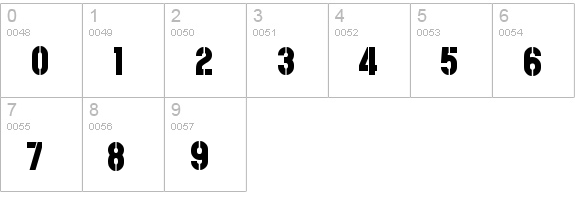
NFL Packers Font Details
Introducing the NFL Packers font, a must-have for all die-hard Green Bay Packers fans! This iconic font captures the spirit and essence of the legendary football team, allowing you to bring their winning energy to any design project. The NFL Packers font is bold, powerful, and instantly recognizable. Every letter is meticulously crafted to resemble the iconic Packers logo, with sharp edges and a strong presence that demands attention. Whether you're designing a Packers-themed website, creating stunning graphics for social media, or adding a touch of green and gold to your personal branding, this font is the perfect choice to elevate your designs to championship level. But here's the best part – the NFL Packers font is available for free! That's right, you can download this incredible font without spending a dime, exclusively at FontsMarket.com. We believe that every Packers fan should have the opportunity to showcase their love and support for the team, and what better way to do it than with this professionally designed, high-quality font. With the NFL Packers font, you can unleash your creativity and unleash the power of the Packers in every project. From posters and banners to merchandise and promotional materials, this font will make your designs stand out from the competition. It's time to let your passion for the Packers shine through with every letter you type. So why wait? Head over to FontsMarket.com and grab your free download of the NFL Packers font today. Join the ranks of Packers fans who are already using this font to create stunning visuals that celebrate their favorite team. Remember, this font is free, but the impact it will have on your designs is priceless. Get ready to cheer on the Packers in style with the NFL Packers font – the ultimate tool for every true fan.